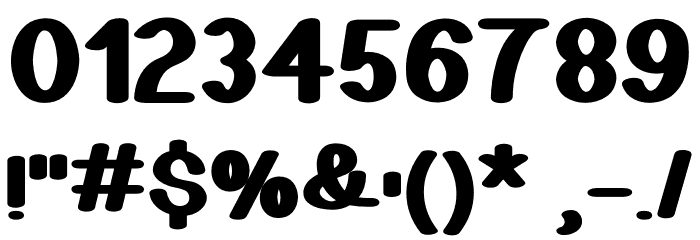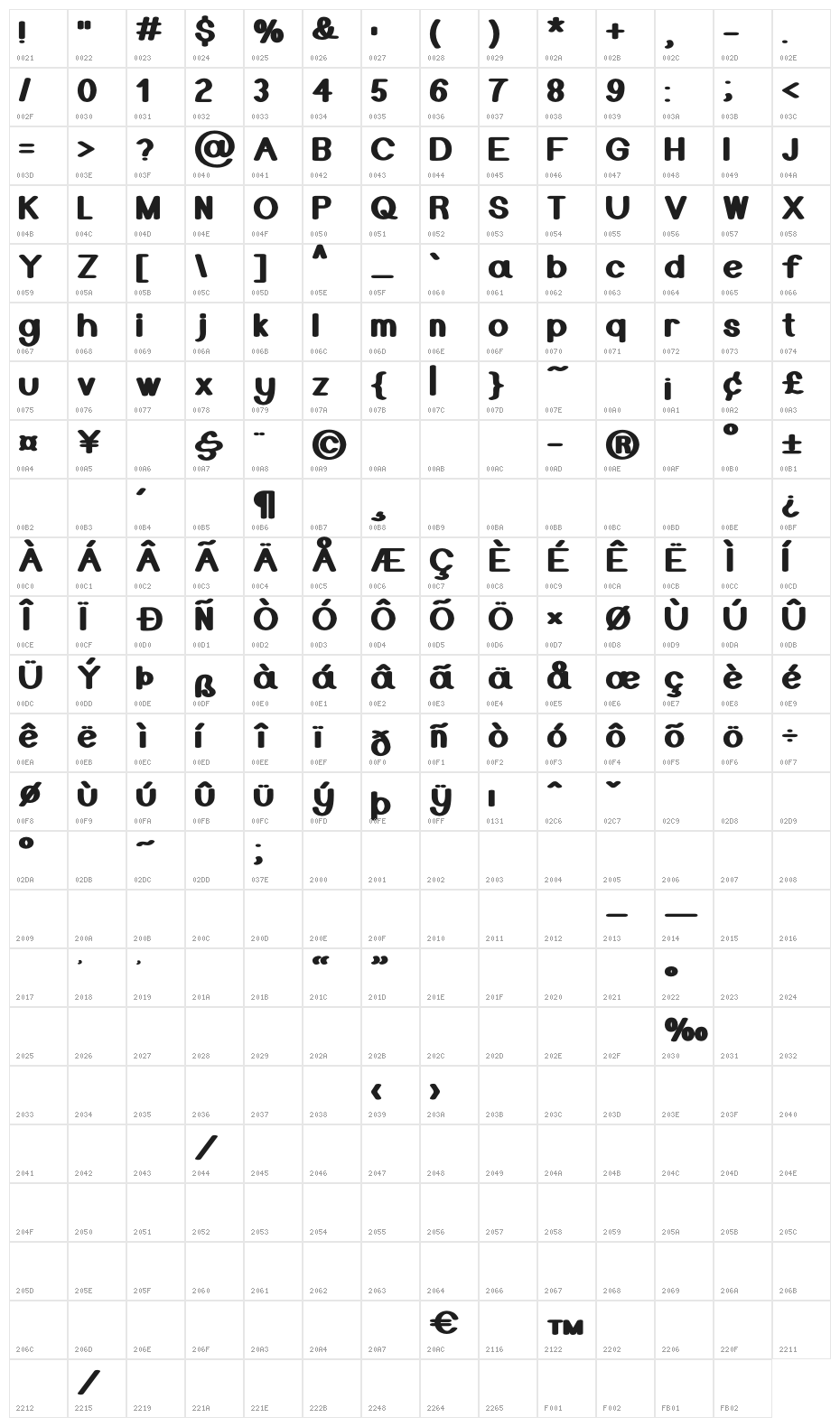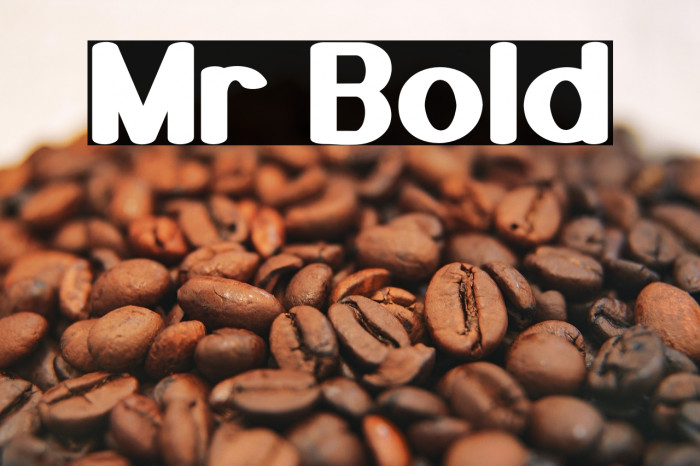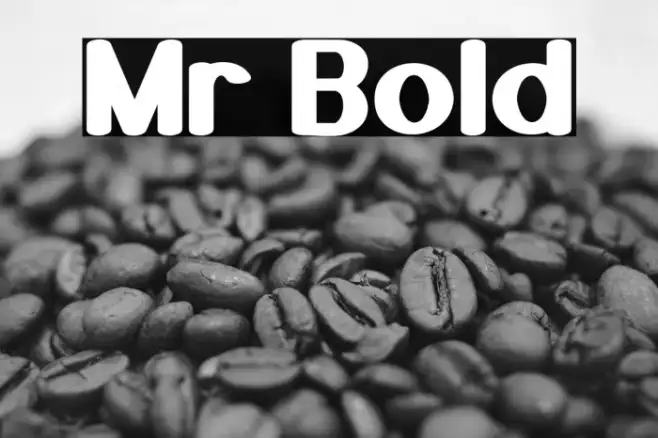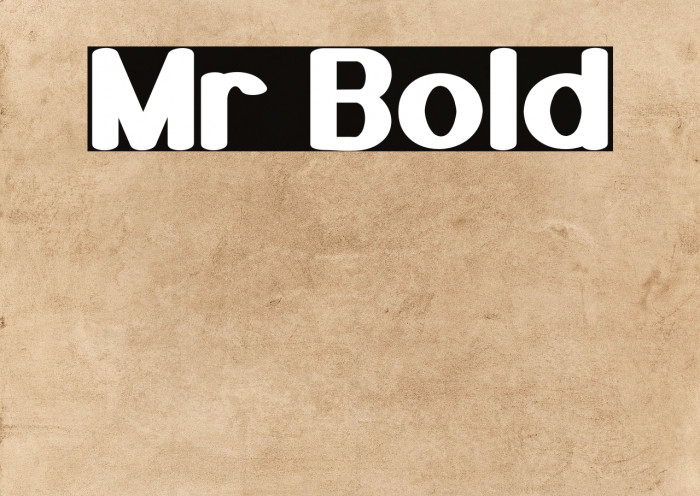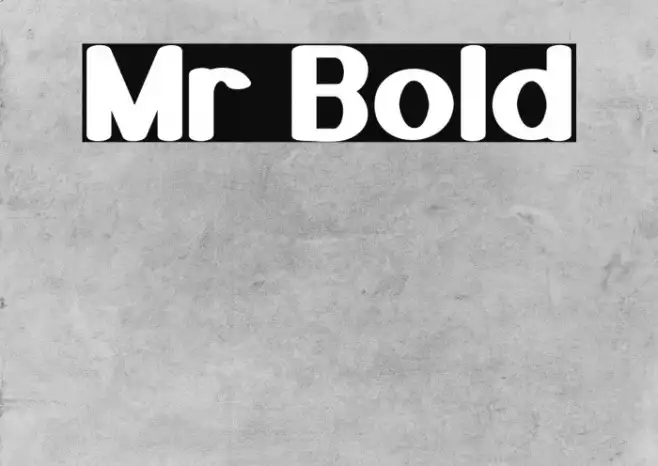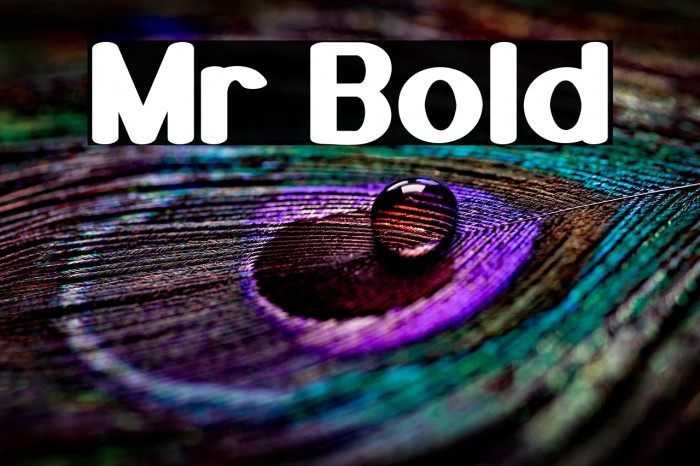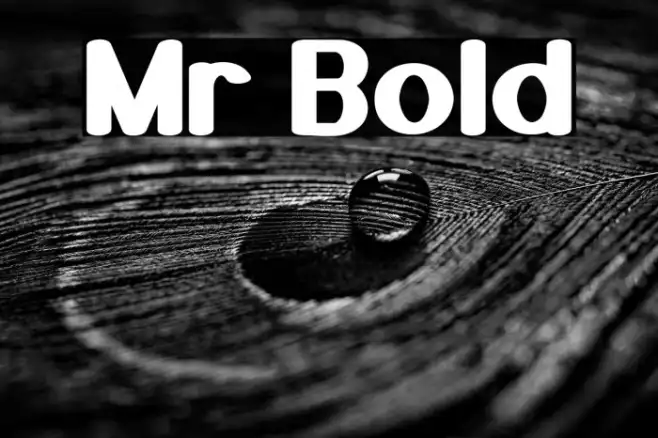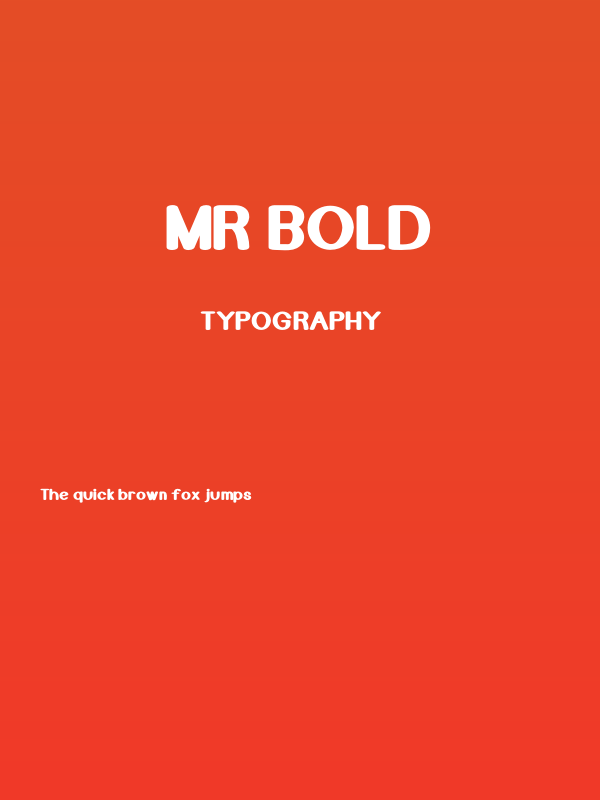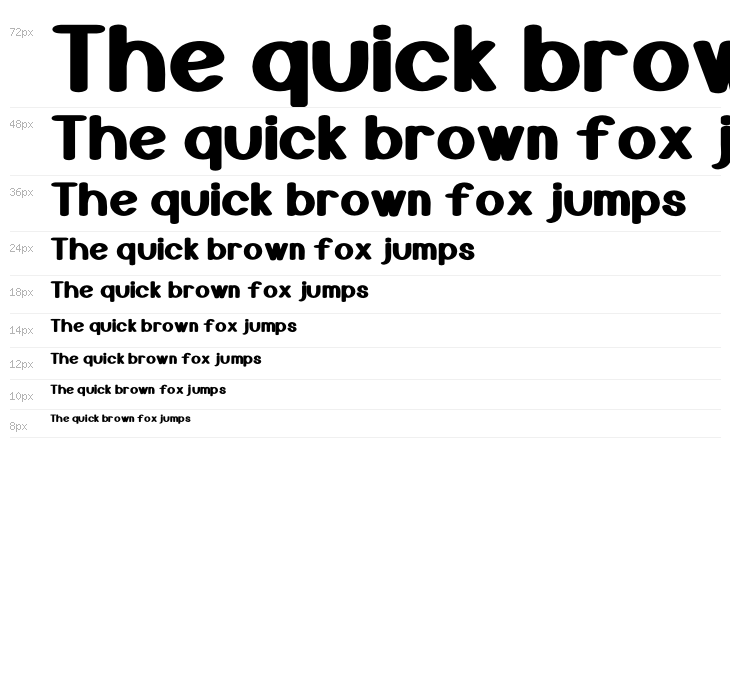
Mr Bold Font
Mr Bold Description
This font features bold, rounded characters that convey a friendly and approachable aesthetic. The letters are evenly weighted, with smooth curves and a consistent thickness throughout, making it highly legible and visually appealing. The numbers and special characters maintain the same rounded style, ensuring uniformity across all glyphs. Its playful yet professional appearance makes it suitable for a variety of design projects. The font's boldness and rounded edges give it a modern and clean look, ideal for capturing attention while maintaining readability.
| Proposed Projects | Ideal for branding, headlines, posters, and children's books due to its playful and bold style. |